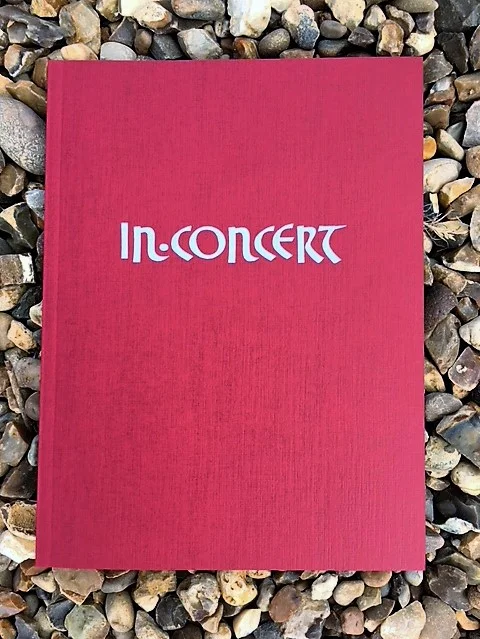
In Concert Exhibition Catalogue
Catalogue from the ‘In Concert’ exhibition held in the Snape Maltings concert hall gallery in 2017.
This festival of new work, which was created specially for the exhibition, celebrates the relationship of music and lettering, to commemorate the 50th anniversary of the building of the concert hall.
The full colour reproductions, and artist’s statements, show the work of 27 top lettering artists, using the mediums of carving, calligraphy, print, needlework and more.
The title ‘In Concert’ encapsulates the mission of this collection - to provide a showcase of the skills of the best contemporary artists each offering their individual response to the power of music and in particular the power of the live performance.’